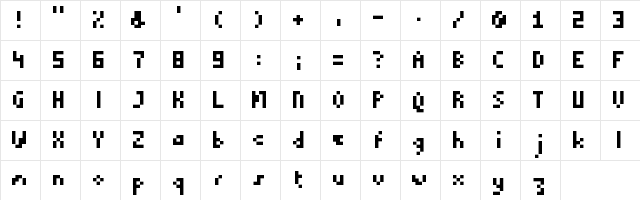
8bit_tiny_retro Regular Free Font
8bit_tiny_retro Regular
Designer: ramasuten
Design Context for 8bit_tiny_retro
8bit_tiny_retro wears its vintage influences proudly, with letterforms that recall mid-century signage, classic packaging, and nostalgia-driven design.
Font Pairing: Combine 8bit_tiny_retro with a simple slab or neutral sans - period-accurate companions reinforce the vintage feel without competing for attention.
Pro Tip: Lean into 8bit_tiny_retro's period character by pairing it with aged paper textures, muted colour palettes, and vintage illustration styles.